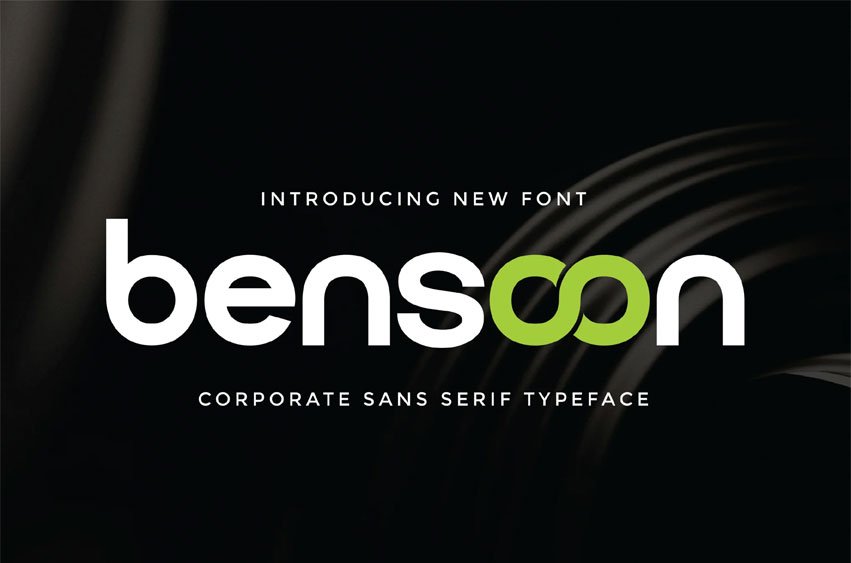
Bensoon Font Sans Serif, a refined and versatile typeface designed to bring clarity, sophistication, and timeless professionalism to your branding projects. Whether you’re building a corporate identity, designing a sleek presentation, or crafting an elegant editorial, this font is engineered to deliver impact without distraction.
Font Features:
• Uppercase & lowercase letters
• Numbers & basic punctuation
• Alternates & ligatures
• Multilingual support
Perfect for:
Corporate branding, tech startups, business websites, clean editorial layouts, pitch decks, and modern product packaging.